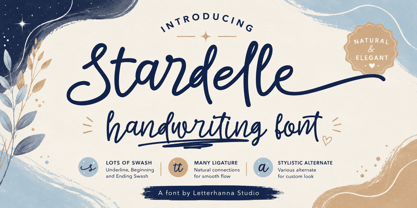
Stardelle
by Letterhanna Studio
The Stardelle Font Family was designed by Rinaldo Hasibuan and published by Letterhanna Studio. Stardelle contains 1 styles. More about this family
"Introducing 'Stardelle,' a bold and beautifully handcrafted font that adds a touch of elegance to your designs. With its flowing lines and abundant swashes, 'Stardelle' exudes charm and sophistication. This handwritten font is perfect for adding a personal and artistic flair to invitations, posters, branding, and more. Let 'Stardelle' illuminate your creativity and bring a touch of magic to your projects."
Designers: Rinaldo Hasibuan
Foundry: Letterhanna Studio